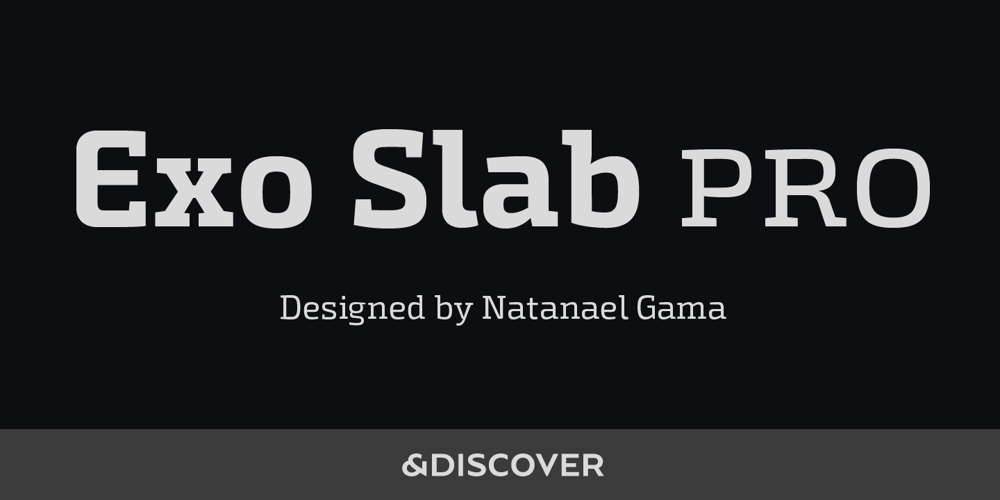
Exo Slab Pro
Exo Slab Pro font
Exo Slab Pro Font Family was designed by Natanael Gama and published by Polimateria. Exo Slab Pro contains 18 styles and family package options. Exo Slab Pro is a slab serif with a technological and futuristic tone. Even though it has a very peculiar look and many distinct shapes that pop out in an headline, it also works well as whole creating a nice shade of text. Large x-height, ink-traps and a modest contrast ensures that this font will work well even on small font sizes. Loaded with opentype features Exo Slab provides a huge versatility. You can use it on rigorous work as well as on more funny projects. From Branding to Editorial, from Paper to Screen, from Today to the Future. Please see our promotional video.